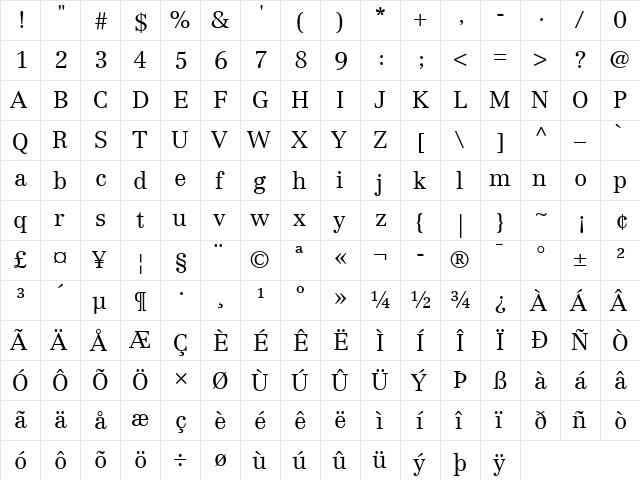
Centennial LT 45 Light Regular
Design Context for Centennial LT 45 Light Typeface
Centennial LT 45 Light offers clean, dependable letterforms without strong stylistic allegiance, making it a practical choice for designers who need flexibility. The delicate stroke weight brings airiness and refinement to layouts.